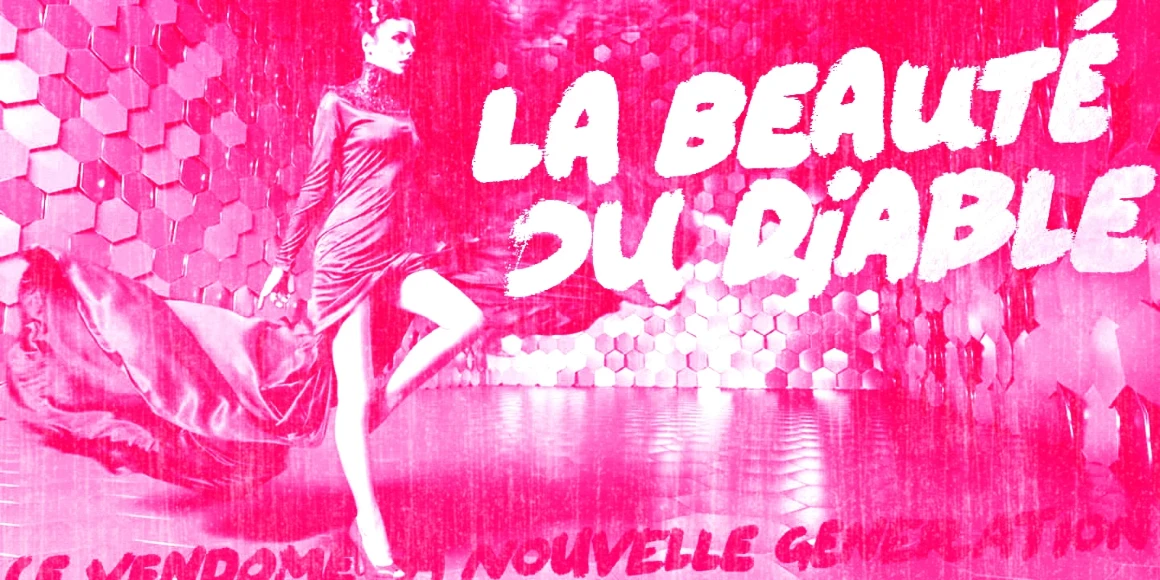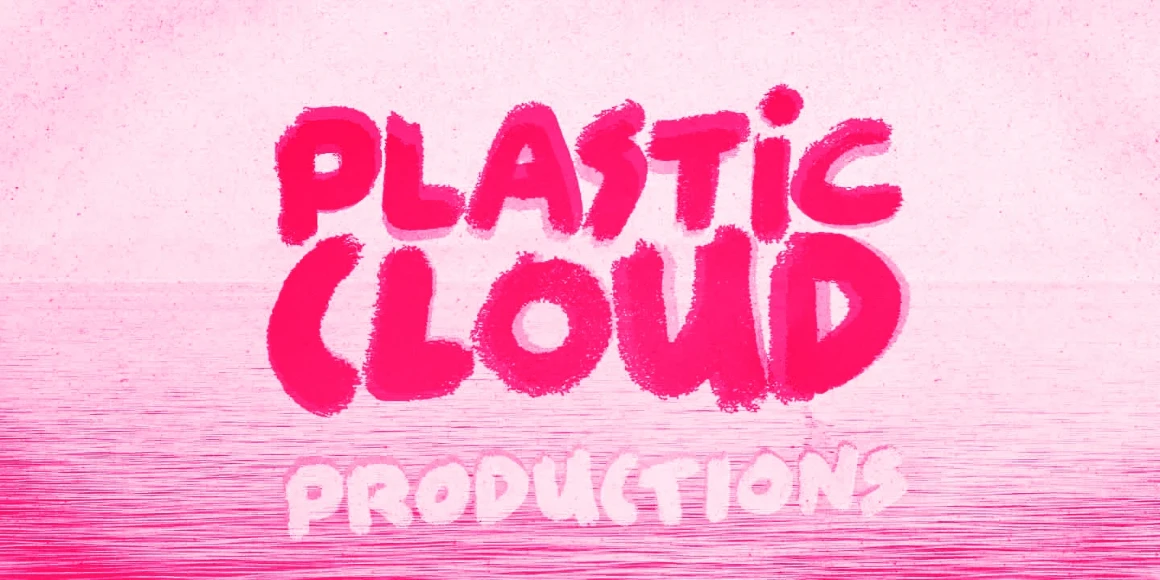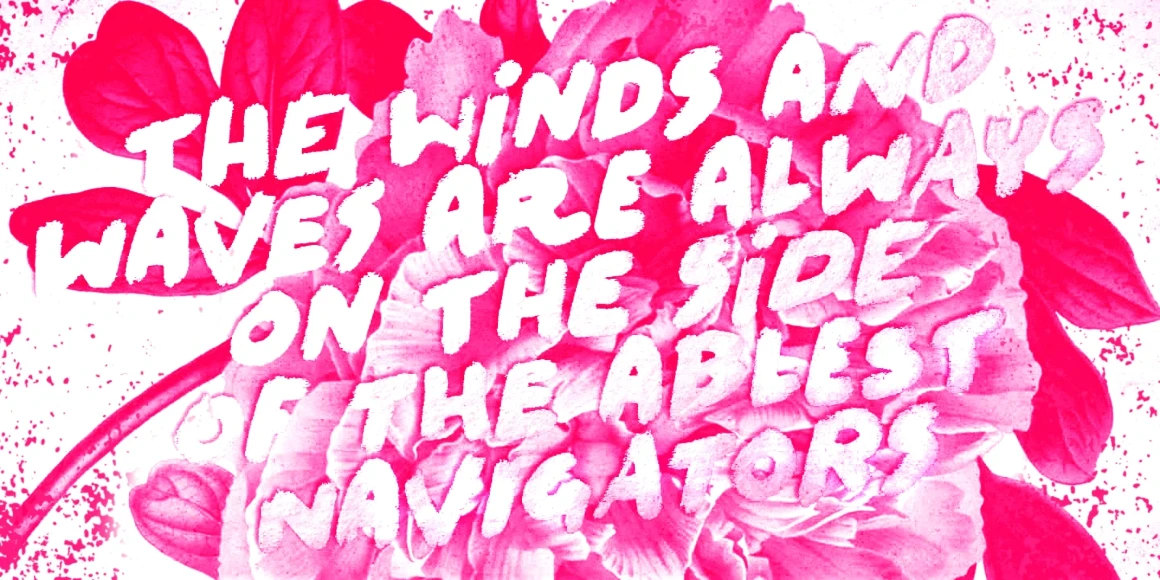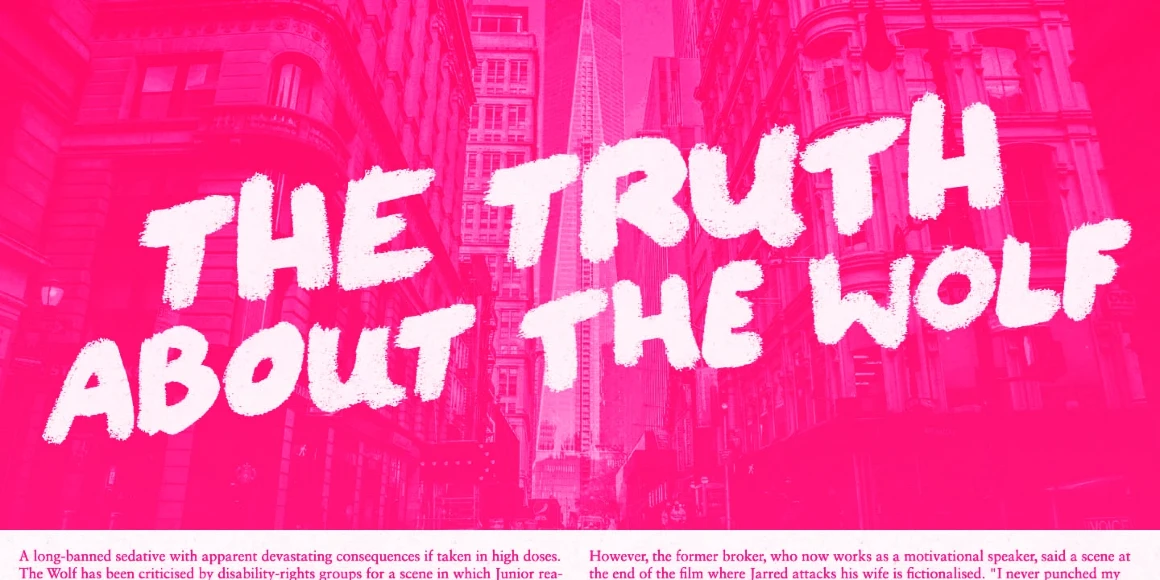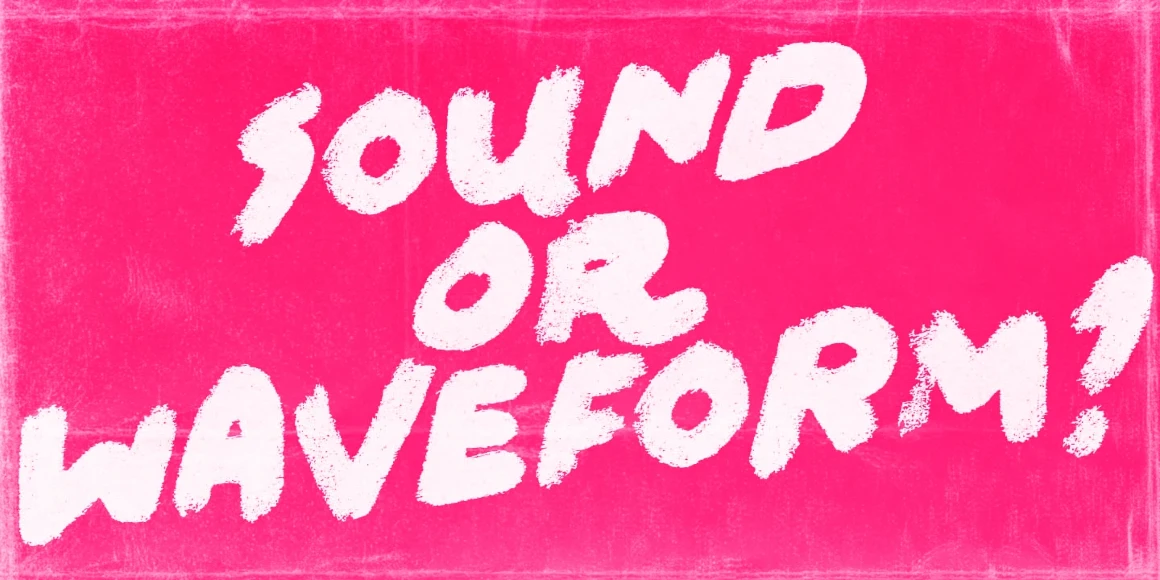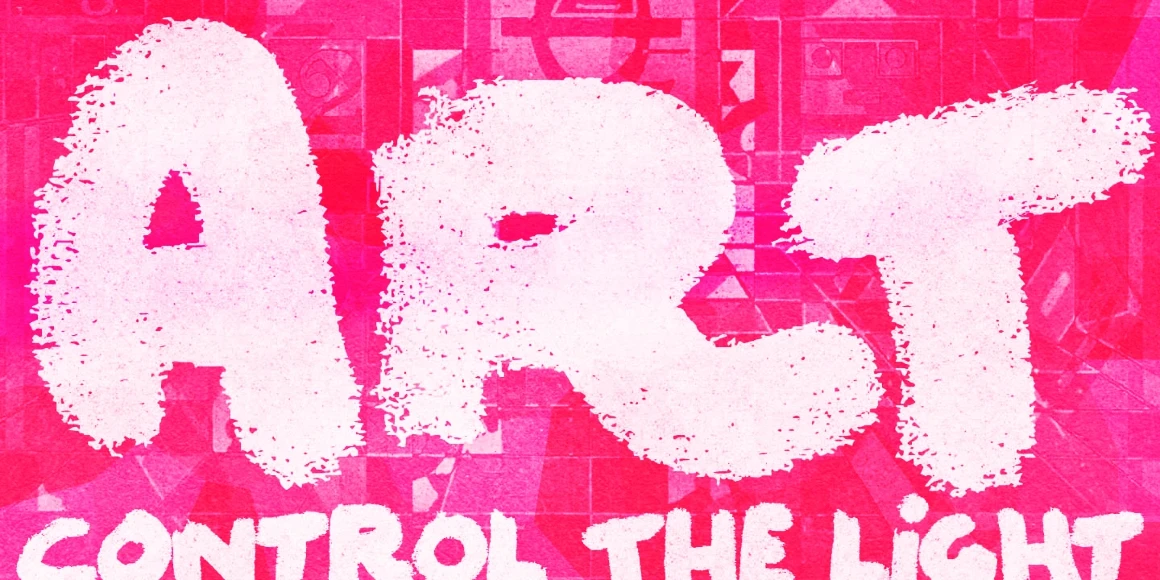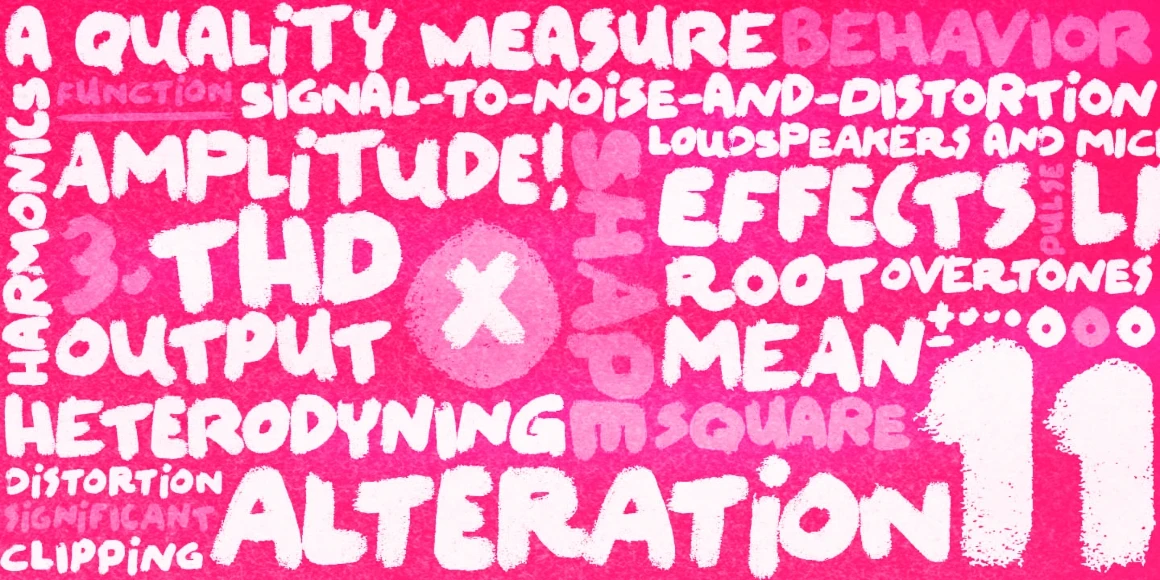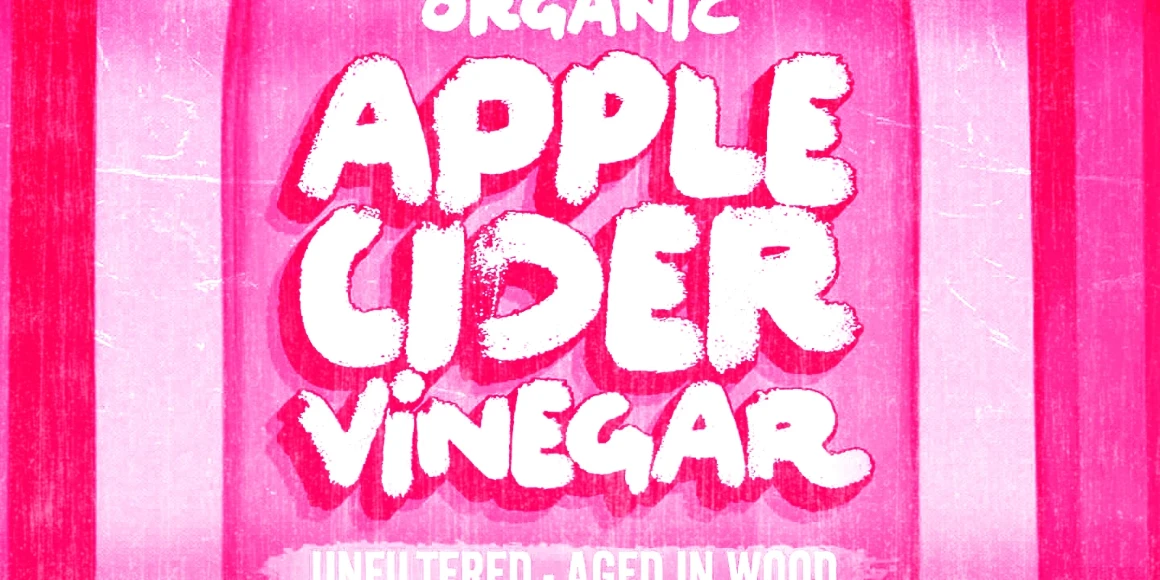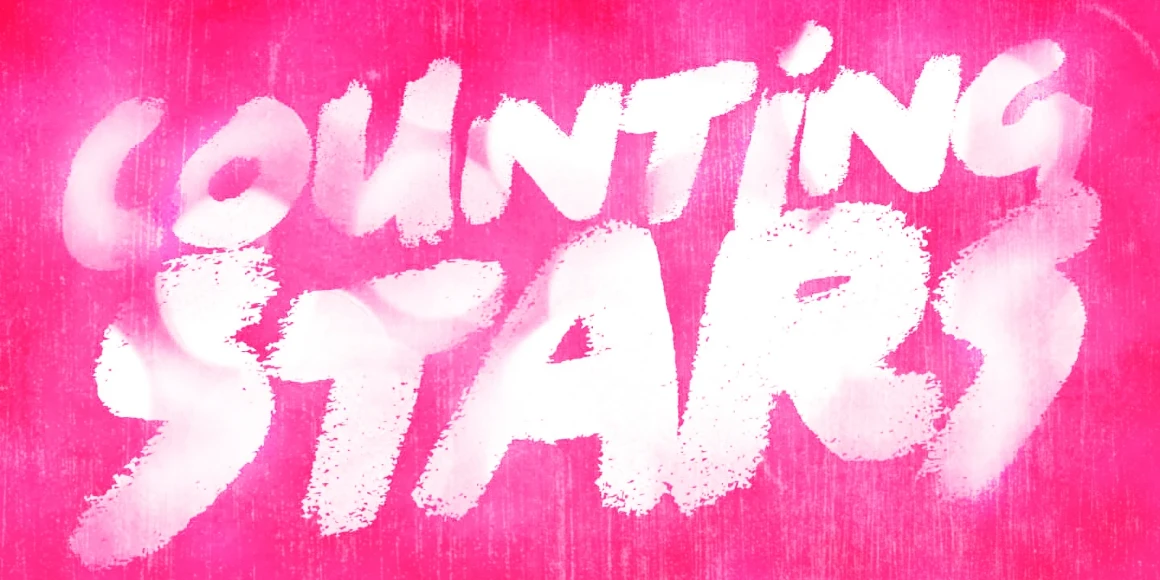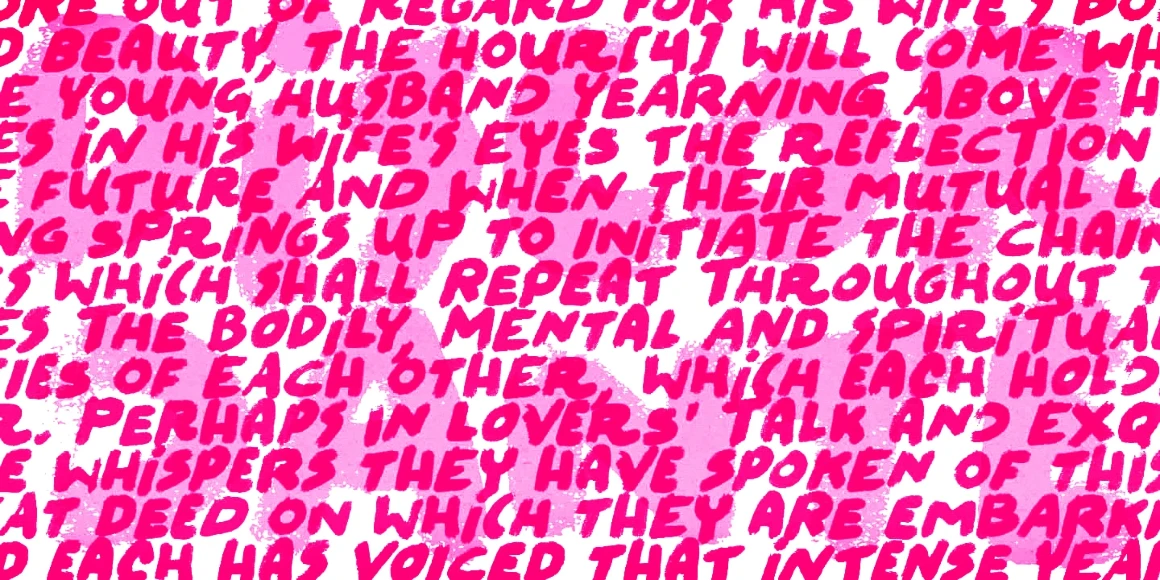
Felt Noisy
Felt Noisy brings a bold, organic spirit with its rough, felt-tip texture and spontaneous energy. Drawn with a worn-out marker, it captures the raw energy of hand lettering. With four variations per letter and two for each number, it delivers an authentic, irregular look — ideal for projects that require personality and impact. Try it out and let it get loud.
Felt Noisy Regular
Felt Noisy Yet